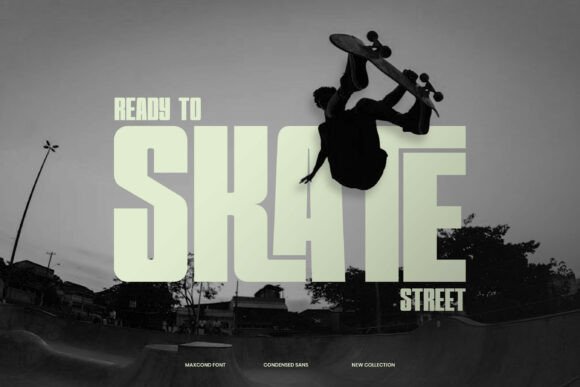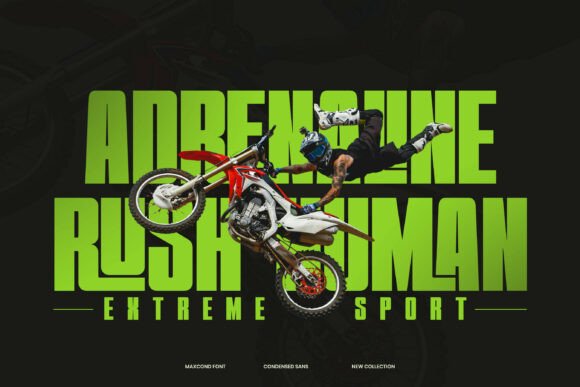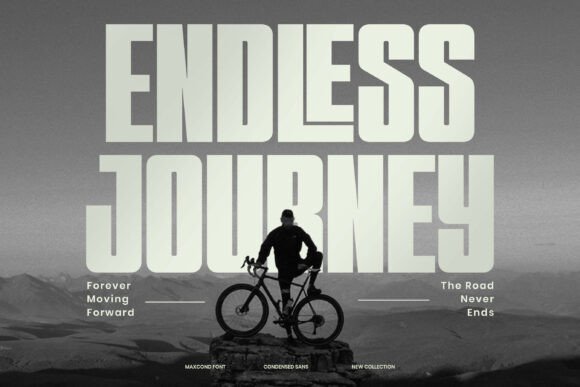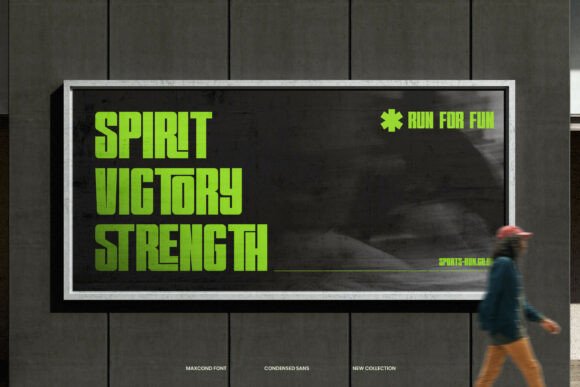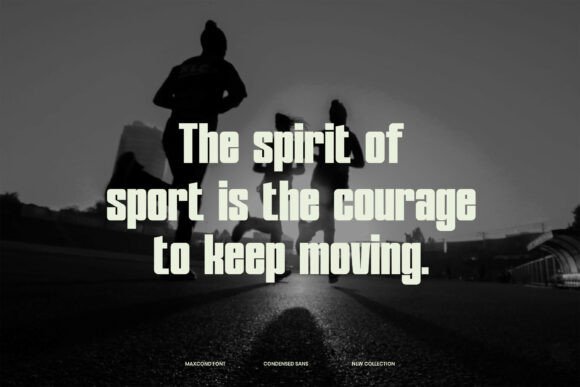
Introduction to Maxcond Font
As a designer, have you ever found yourself staring at a blank canvas, searching for the perfect font to bring your creative project to life? The moment of truth arrives when you finally discover the perfect design resource – a font that perfectly captures the essence of your vision. For those seeking a bold and powerful statement, look no further than the Maxcond Font.
This modern condensed sans serif font is a game-changer, offering a strong, compact letterform structure that delivers maximum impact while maintaining clarity and precision. With its clean design and transparent background, Maxcond Font is the perfect choice for sports, fitness, posters, headlines, and branding. Its high-quality design makes it an invaluable resource for designers seeking to elevate their creative work.
Key Features of Maxcond Font
- Transparent background, allowing for seamless integration into various design elements and backgrounds.
- Includes multiple font styles and weights, providing designers with a range of options for creative expression.
- Perfect for use in logos, branding materials, and other visual identity elements, thanks to its modern and sophisticated design.
Honest Review: Maxcond Font
I recently stumbled upon the Maxcond Font and I must say it’s a great addition to my design resource library. This font is perfect for creative projects that require a bold and modern touch.
The Maxcond Font is also a high-quality font with a transparent background, making it easy to use in both light and dark backgrounds. The font is also fully editable, allowing designers to customize it to fit their needs.
However, there are a few limitations to the Maxcond Font. The font is only available for free download, which may not be suitable for designers who need a more extensive font library. Additionally, the font may not be suitable for very large or complex projects, as it can be a bit buggy at times.
Overall, I’m impressed with the Maxcond Font and would definitely recommend it to designers who need a reliable and versatile font for their creative projects. Just be aware of the limitations and use it accordingly.
Tips for Getting the Most Out of Maxcond Font
Maxcond Font is a high-quality design resource that can add a touch of elegance to your creative project. To get the most out of it, use it with a transparent background to create a beautiful, layered design.
Maxcond Font is perfect for use in logos, branding materials, and other design elements where a unique, high-quality font is required. It’s also a great choice for designers working on free download projects who need a professional-looking font without breaking the bank.